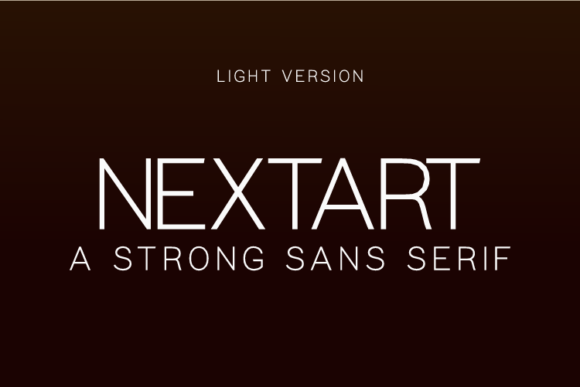
Behold, the enchanting Nextart Light Font - an exquisite creation by Nan Design that takes your designs to new heights of romance, timelessness, and minimalism. This captivating all-caps sans serif font is a true masterpiece, crafted with meticulous attention to detail to deliver a visual experience that speaks volumes.
With its sweeping curves and delicate lines, Nextart Light dances across your designs like a gentle summer breeze, evoking a sense of nostalgia and timeless elegance. Its understated beauty lends itself perfectly to a multitude of creative endeavors, from elegant magazine layouts and captivating invitations to striking headers and awe-inspiring large-scale artwork.
Imagine your words flowing effortlessly across the page, each letter a work of art in its own right, commanding attention and leaving an indelible mark on your audience. Nextart Light transforms ordinary text into a symphony of visual delight, elevating your designs to new heights of sophistication and refinement.
Whether you're a seasoned designer or just starting your creative journey, Nextart Light is the perfect font to add a touch of magic to your projects. Its versatility knows no bounds, seamlessly adapting to a wide range of design styles and applications. Let your imagination soar as you explore the endless possibilities that await you with this remarkable font at your fingertips.
So, embark on a creative odyssey with Nextart Light today and unlock a world of endless possibilities. Experience the joy of creating designs that captivate and inspire, leaving a lasting impression that resonates with your audience. Let the romance, timelessness, and minimalism of Nextart Light guide you towards design excellence.